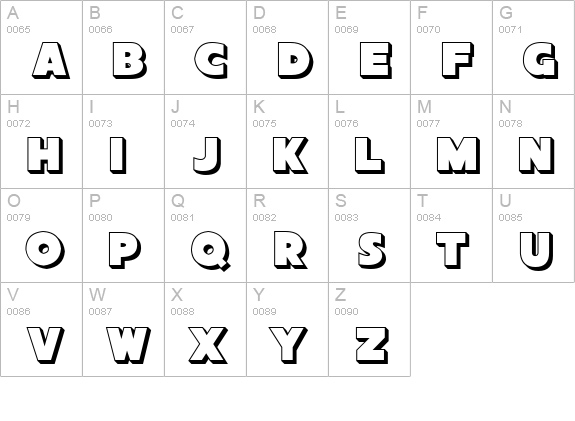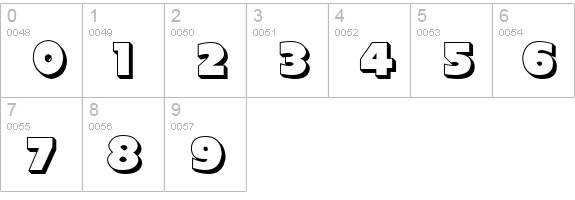
Sans Poster 3D JL Font Details
Sans Poster 3D JL font is a visually stunning typeface that is perfect for creating eye-catching and attention-grabbing designs. This font features a unique three-dimensional effect that adds depth and dimension to your typography. With its bold and modern appearance, Sans Poster 3D JL font is ideal for posters, advertisements, headlines, and any other design project that requires a strong and impactful look. What makes Sans Poster 3D JL font even more appealing is the fact that it is available for free. Yes, you read that right! This incredible font can be freely downloaded from FontsMarket.com. Now, you can enhance your designs without worrying about breaking the bank. Whether you are a professional designer or someone who enjoys experimenting with typography, this font is a must-have in your collection. The clean lines and geometric shapes of Sans Poster 3D JL font make it highly versatile and suitable for a wide range of design styles. It provides a modern and futuristic vibe that will instantly captivate your audience. Whether you are creating a sleek and minimalist design or a bold and extravagant one, this font will elevate your work to new heights. With its easy-to-read letterforms and well-defined contours, Sans Poster 3D JL font ensures that your message is conveyed with clarity and impact. The attention to detail in this font is evident in every character, making it a true masterpiece of typographic design. So, why wait? Take advantage of the opportunity to freely download Sans Poster 3D JL font from FontsMarket.com and unlock a world of creative possibilities. Elevate your designs, captivate your audience, and make a lasting impression with this extraordinary font. Don't miss out on this fantastic opportunity to enhance your design projects with this visually striking and freely available font.